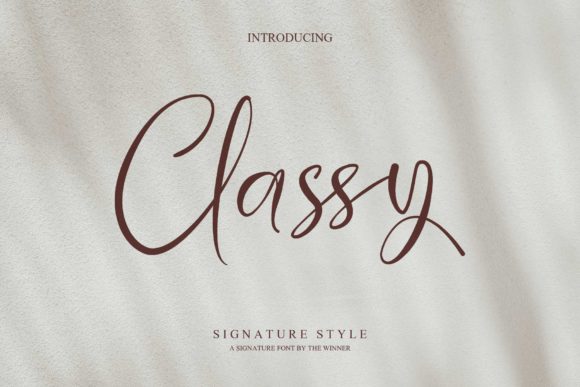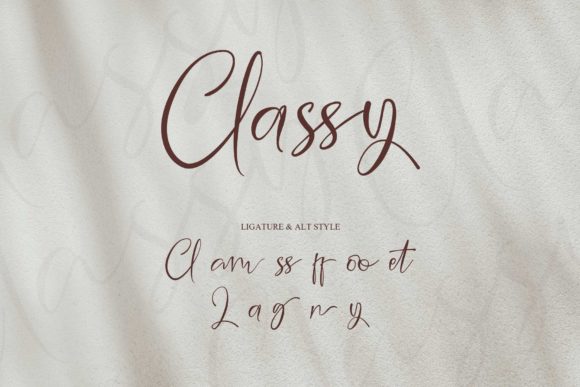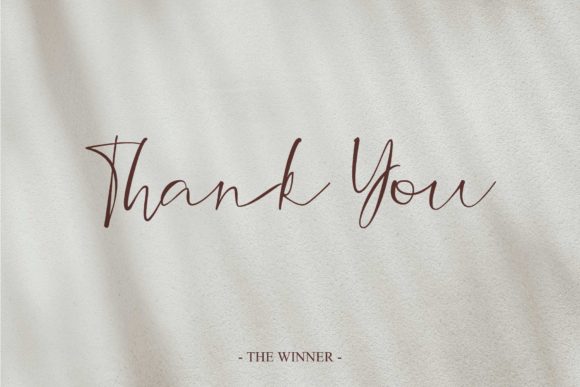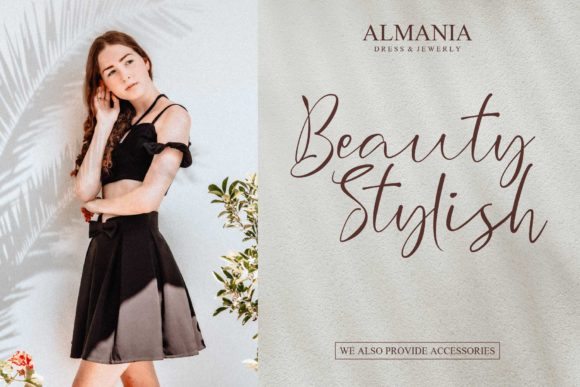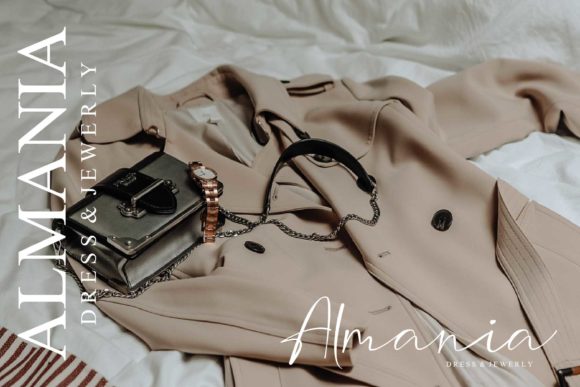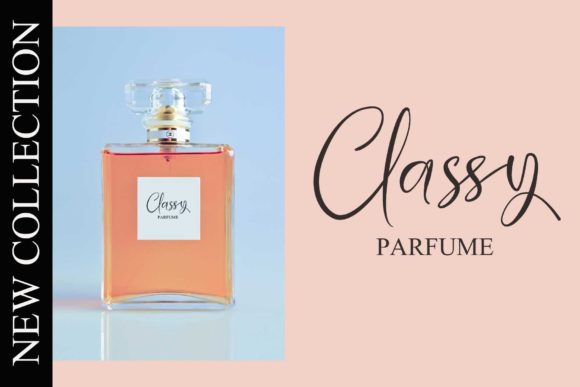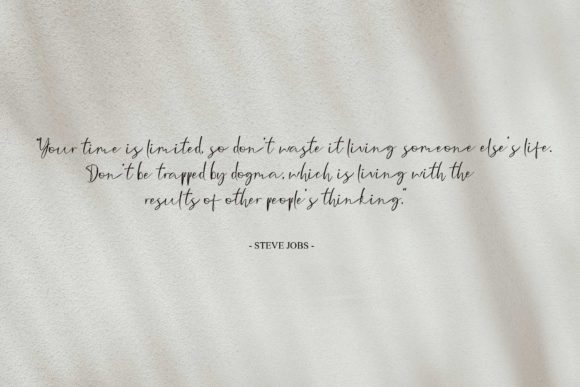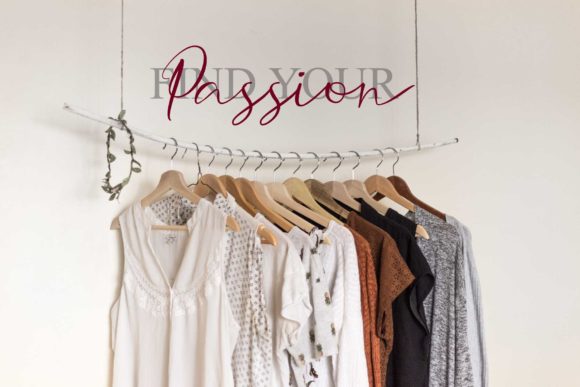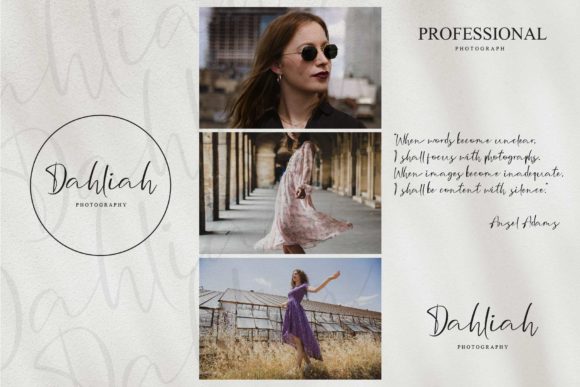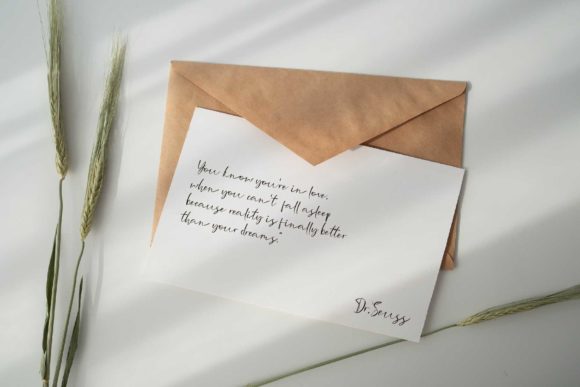
Classy Font
About Classy Font
Classy is a refined and stylish signature font that exudes elegance and sophistication. With its relaxed yet confident letterforms, this font is perfect for a wide range of design projects, including social media posts, advertisements, product packaging, product design, labels, photography, logos, special events, and more.
The beauty of Classy lies in its sleek and flowing lines, reminiscent of a handwritten signature. It adds a touch of luxury and class to your designs, elevating them to a higher level of sophistication. The carefully crafted letterforms create a harmonious and balanced look, making Classy a visually pleasing choice that captures attention.
When it comes to social media posts and advertisements, Classy can help you create a strong and memorable visual presence. Its stylish and elegant appearance makes it ideal for promoting high-end products or services, adding a touch of refinement to your digital content. Whether you’re designing graphics for Instagram, Facebook, or other social media platforms, Classy will make your posts stand out and leave a lasting impression.
Product packaging and design can also benefit from the use of Classy. Its sleek and sophisticated look enhances the perceived value of your products, making them more appealing to consumers. Whether you’re designing labels for cosmetics, luxury goods, or high-quality food and beverages, Classy adds a touch of elegance that communicates the premium nature of your brand.
In logo design, Classy can help create a strong and memorable visual identity for your business. Its stylish and refined letterforms can be customized to represent the personality and values of your brand. Whether you’re targeting a high-end market or aiming for a sophisticated and timeless look, Classy can be tailored to suit your brand identity, making it a versatile choice for logo design.
For special events such as weddings, parties, or corporate functions, Classy brings an air of elegance and sophistication. Whether it’s designing invitations, event signage, or other promotional materials, Classy adds a touch of refinement and sets the tone for a memorable occasion.
In summary, Classy is a relaxed and stylish signature font that adds an element of elegance and sophistication to your designs. Its versatility makes it suitable for a wide range of applications, from social media posts and advertisements to product packaging, logos, and special events. With Classy, you can create visually appealing designs that leave a lasting impression of luxury and refinement.